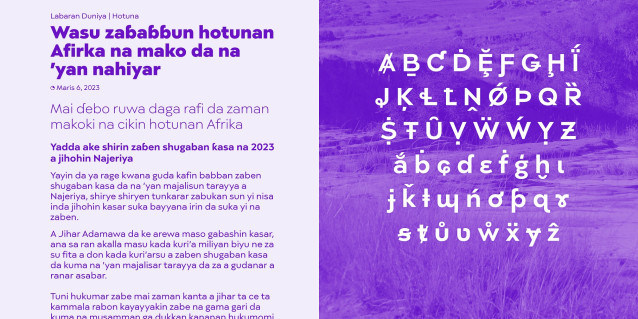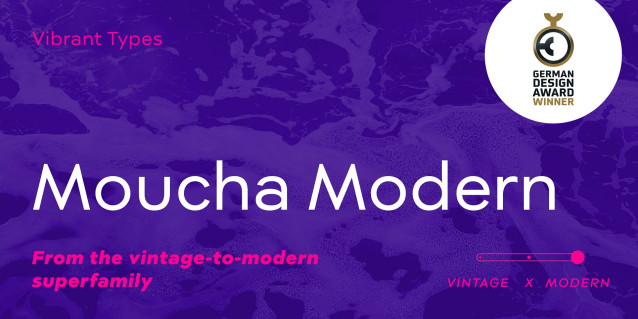
Moucha Modern Font Family
Moucha Modern Font Family is a geometric typeface family with a static look. The equalized character widths, like the wide ‘n’, give it a contemporary appeal. It is part of the Moucha vintage-to-modern superfamily, which received the German Design Award 2024 for its multitude of variants. It supports 890 Latin, Cyrillic, and Greek languages.
How the superfamily works: All variants share the same round characters while rectangle-based characters vary in width. Do you want a homogenous modern look with a wide ‘n’ like you know from 21st century’s Montserrat? Or do you prefer a classic, rhythmic aesthetic? Use the balanced Moucha X for a solid middle ground.